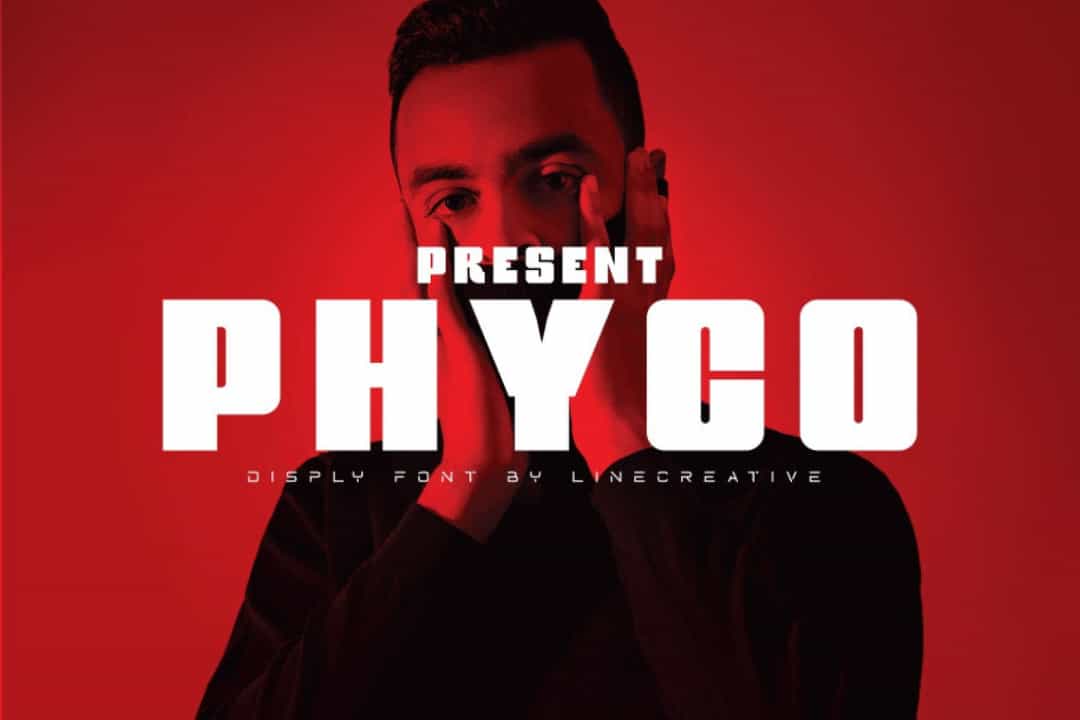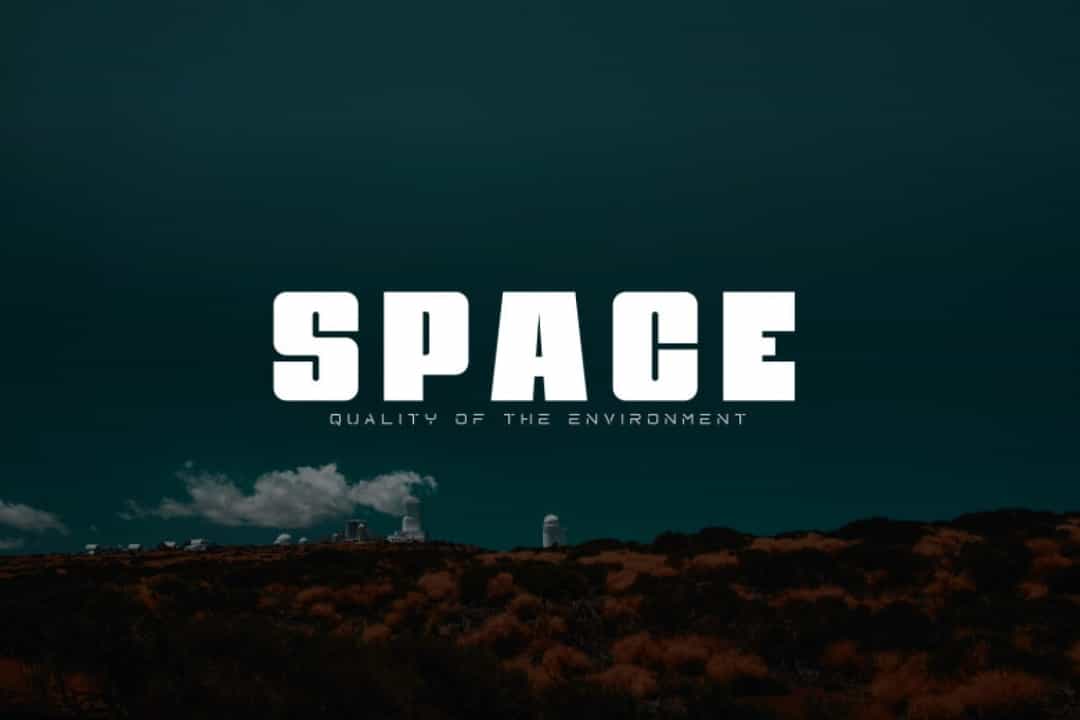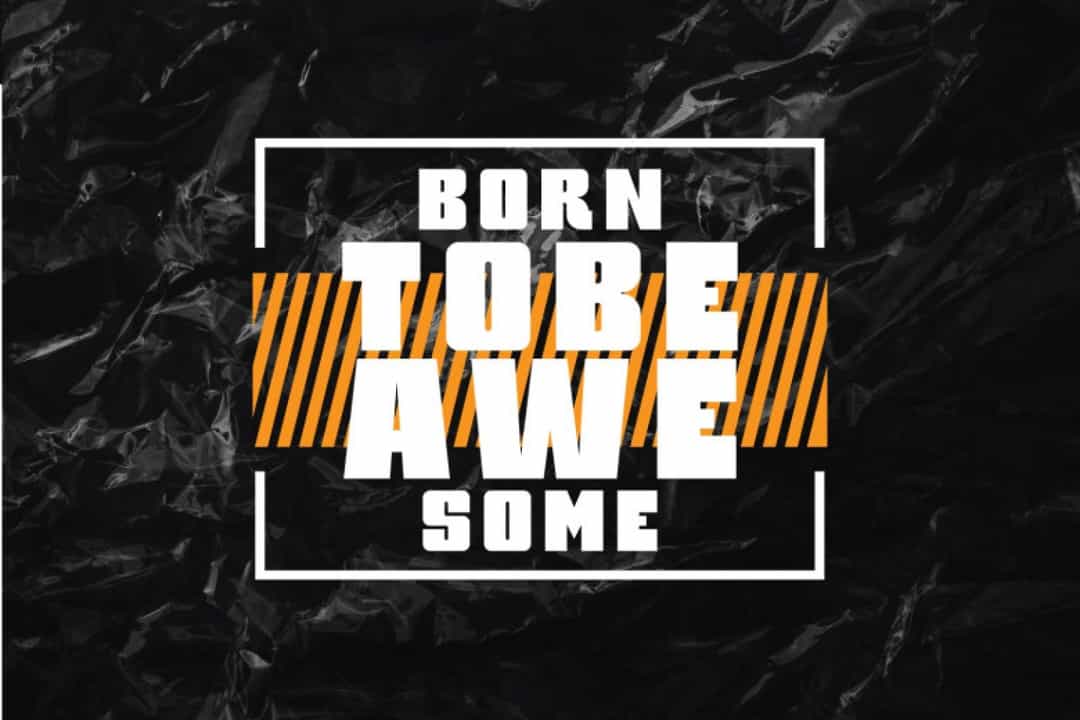
Phyco is an attention-getting display and fat sans serif typeface that is suitable for usage in headlines, titles, posters, banners, branding, and T-shirt design and other graphic arts.